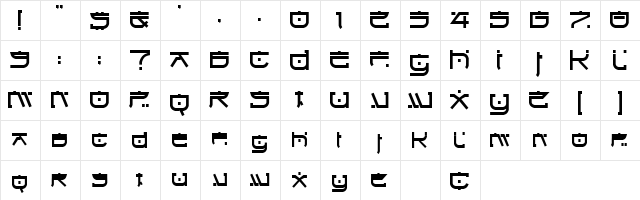
IttoBlock Regular
Design Context for IttoBlock Typeface
IttoBlock is a composed and adaptable typeface that performs quietly and consistently across a wide range of design contexts.